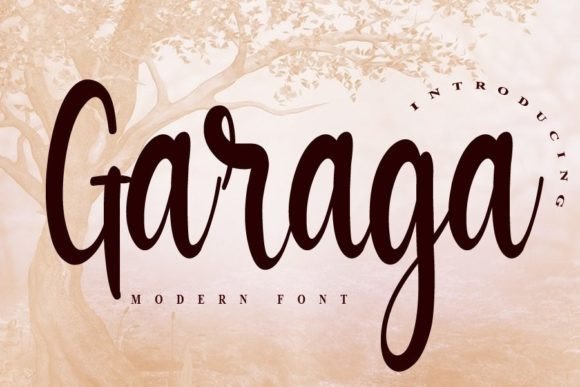
Unleash the Allure of Garaga: A Font Symphony for Business Success
In the realm of business, success is a symphony, a harmonious blend of elements that resonate with your audience, creating a captivating experience. Garaga, a beautiful handwritten font, is the maestro of this symphony, orchestrating a visual masterpiece that will elevate your business to new heights.
With its graceful strokes and elegant curves, Garaga is a font that speaks to the heart, evoking emotions and creating connections. It's a font that dances across your designs, capturing attention and leaving a lasting impression. Whether you're crafting stunning YouTube banners, captivating covers, or professional logos, Garaga adds a touch of sophistication and charm that sets your business apart.
Imagine your wedding invitations adorned with Garaga's delicate script, each letter flowing into the next like a love story unfolding. Picture your business cards, flyers, and marketing materials transformed into works of art, exuding professionalism and creativity. Garaga is the key to unlocking a world of possibilities, where your business thrives and flourishes.
But Garaga is more than just a pretty face; it's a font engineered for success. Its clean lines and legible characters ensure that your message is conveyed with clarity and impact. Whether you're targeting a global audience or connecting with local customers, Garaga ensures that your words resonate with power and persuasion.
With Garaga as your font companion, you'll embark on a journey of growth and prosperity. Your designs will captivate, your message will inspire, and your business will reach new heights of achievement. Garaga is the key to unlocking your business's true potential, transforming it into a symphony of success.